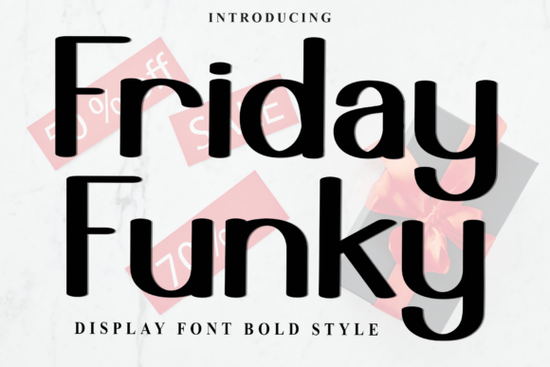
If you’re designing Christmas greeting cards, gift tags, or any project that needs a touch of festive cheer, Friday Funky Font might be exactly what you’re looking for. This whimsical, merry typeface from Creative Fabrica brings the spirit of the holiday season to life with its decorative elements and nostalgic feel. It’s a display font that works beautifully for both digital and print projects, and it’s fully PUA encoded, so all those lovely alternate characters are easy to use.
What Can You Create with Friday Funky?
This font shines on anything holiday-related. Think Christmas cards with hand-lettered warmth, gift tags that feel personal and vintage, or social media graphics for a seasonal sale. Crafters using cutting machines like Cricut or Silhouette can add the festive letters to tote bags, ornaments, and home décor. Even print-on-demand sellers can drop the cheerful type into mug designs, hoodies, or phone cases to boost their holiday collections. The decorative swashes and ligatures make short phrases like “Ho Ho Ho” or “Merry & Bright” look like custom calligraphy.
Because Friday Funky reads clearly at larger sizes, it’s ideal for headlines, poster titles, and window decals. Pair it with a simple sans serif for body text on an invitation, and you have a balanced, professional look that still feels playful.
How Does PUA Encoding Make This Font Easier to Use?
Many decorative fonts hide their special glyphs behind complex software. Friday Funky Font is PUA (Private Use Area) encoded, which means you can access extra swashes, alternates, and ligatures directly from your system’s character map or through simple glyph panels in programs like Adobe Illustrator, Photoshop, or even free tools like Inkscape. You don’t need advanced design skills just copy and paste the character you want. This is a big time-saver for crafters who want to add a flourish to the last letter of a name but don’t want to wrestle with coding.
For Silhouette Studio and Cricut Design Space users, PUA encoding is a real advantage. You can select alternate letters right in the software, no extra plug‑ins needed. So you get that custom, hand‑finished look without any headaches.
What Other Fonts Pair Well With a Festive Display Style?
If you’re combining Friday Funky with other typefaces, aim for contrast. A clean, simple sans or serif for body copy lets the funky letters take the spotlight. But when you want to create a themed set like a collection of holiday titles you can mix fonts that share a whimsical mood but differ in weight or era.
Quick Start Guide: Getting the Most Out of Friday Funky
Ready to make your project shine? Here’s a short checklist to keep your workflow smooth:
- Open a glyph panel or character map to browse all the alternates. Look for swashes, ligatures, and stylistic sets.
- Combine Friday Funky with a clean secondary font to keep longer parts of your design easy to read.